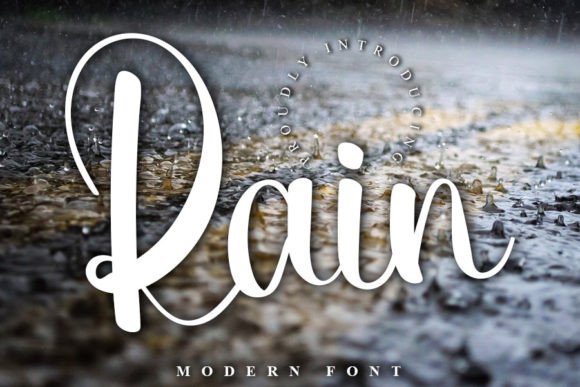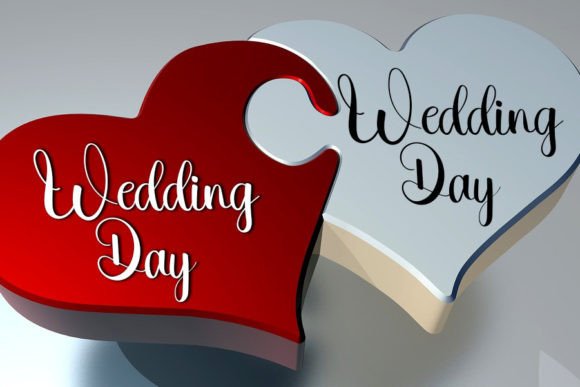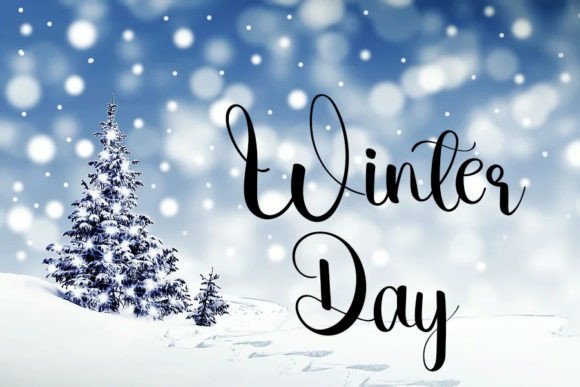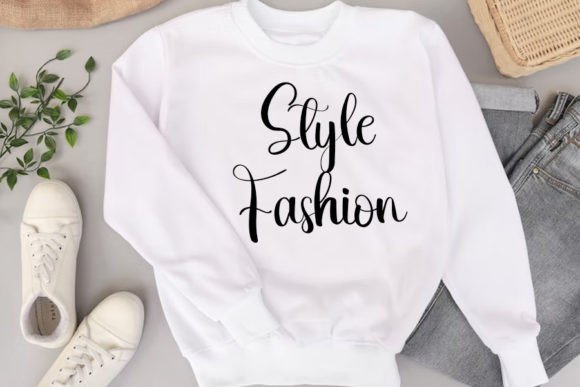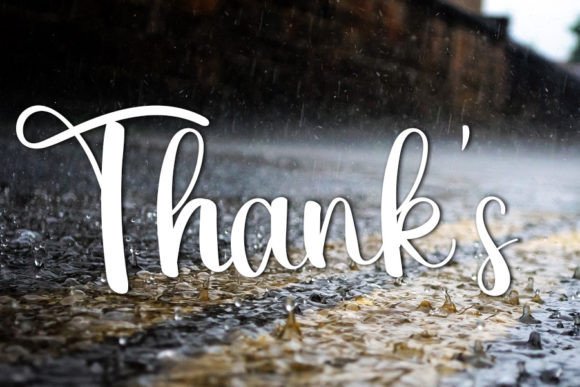
Rain Font
Simple and Unique Handwritten Font for Versatile Creative Use
If you’re searching for a flexible, stylish font that works across various design needs, look no further than Rain. This simple and unique handwritten font brings together the best of clarity and charm. Its fresh appearance and clean strokes make it ideal for creatives who want a font that’s both functional and visually appealing.
Whether you’re a designer working on branding or someone crafting a DIY project, Rain offers a professional yet approachable feel that works in nearly every context.
Discover Rain: Fresh, Versatile, and Easy to Use
Rain was created to serve as a multi-purpose typeface. Thanks to its well-balanced lettering and modern handwritten style, it blends into a wide range of projects seamlessly. As a result, this simple and unique handwritten font has become a favorite among designers and crafters alike.
You can confidently use it in:
• YouTube banners and thumbnails
• Logo mockups for small businesses
• Wedding invitation sets and RSVP cards
• Identification cards and name tags
• Flyers and brochures
• Personalized crafts and DIY projects
Its simplicity ensures legibility, while its uniqueness adds personality to every word.
Why Rain Stands Out to Designers and Creatives
Choosing the right font can dramatically influence how your work is received. With Rain, you get a typeface that’s elegant in its simplicity yet distinct enough to leave a lasting impression.
Here’s why many users love Rain:
• Balanced, clean lines for enhanced readability
• Handwritten character that adds a personal touch
• Excellent performance across print and digital formats
• Professional enough for branding, casual enough for crafts
This simple and unique handwritten font proves that beauty doesn’t have to be complex.
Ideal for Branding, Content, and DIY Design
Rain’s adaptable style makes it perfect for:
• Content creators and influencers
• Wedding planners and event designers
• Small business owners and freelancers
• Teachers creating custom classroom materials
• Hobbyists and crafters making unique products
Whatever your design goals may be, Rain provides a polished yet inviting aesthetic that works across the board.
Rain isn’t just another font—it’s a smart design choice. Its minimal yet unique style adds a personal flair without overwhelming your visuals. Whether you’re developing a brand or creating an event invitation, this simple and unique handwritten font will help you stand out with elegance and clarity.